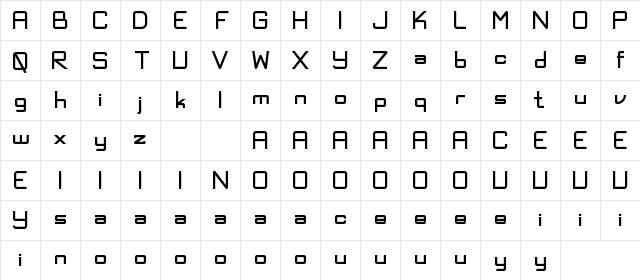
Exninja Demo Bold Free Font
Exninja Demo Bold
Foundry: Edric Studio
Designer: Muhammad Deyan S & Renata Insan C
Design Context for Exninja Demo
Exninja Demo is a composed and adaptable typeface that performs quietly and consistently across a wide range of design contexts. Its bold stroke weight gives it real presence on the page.